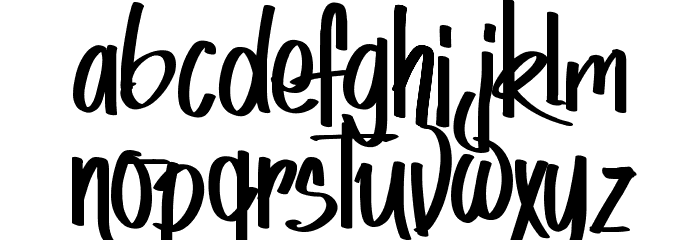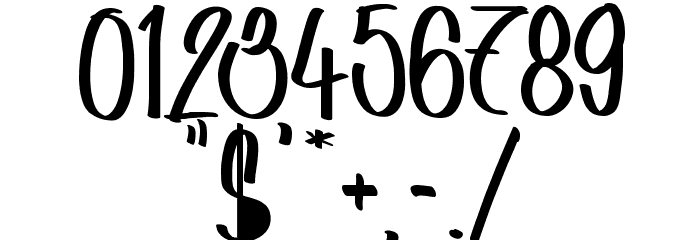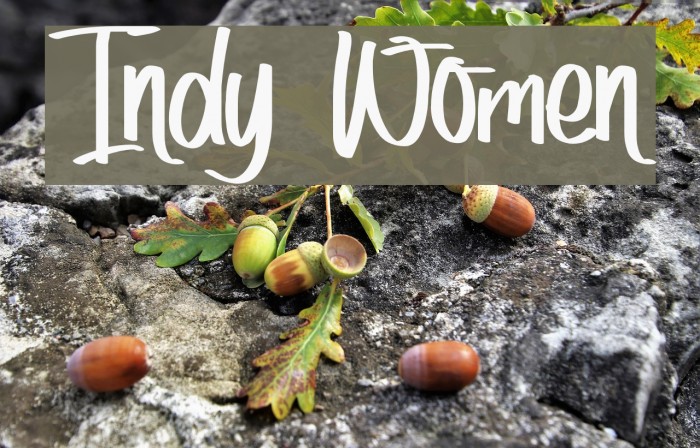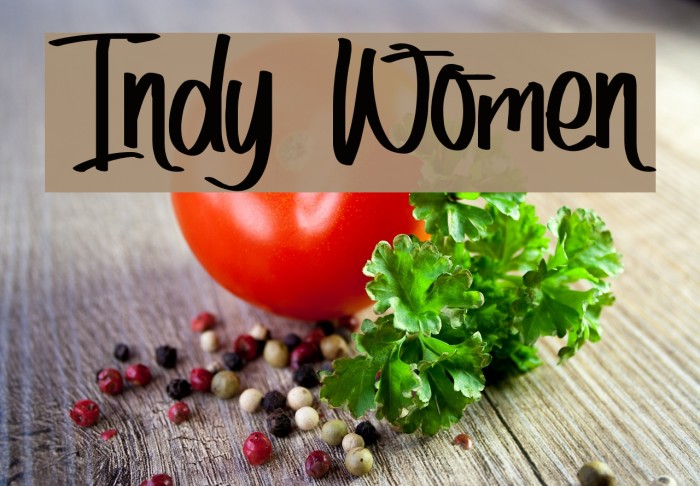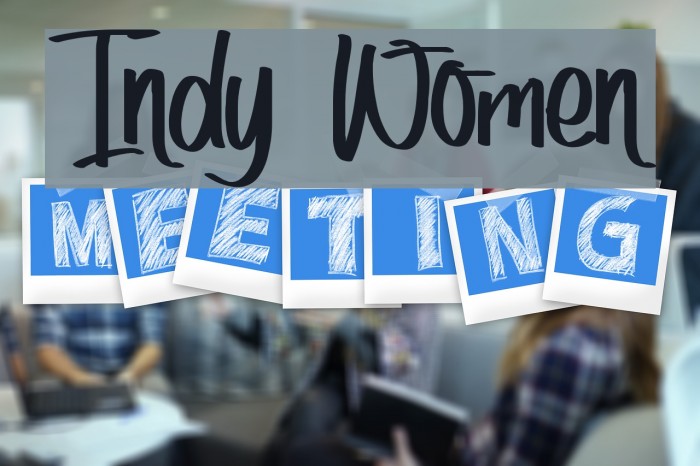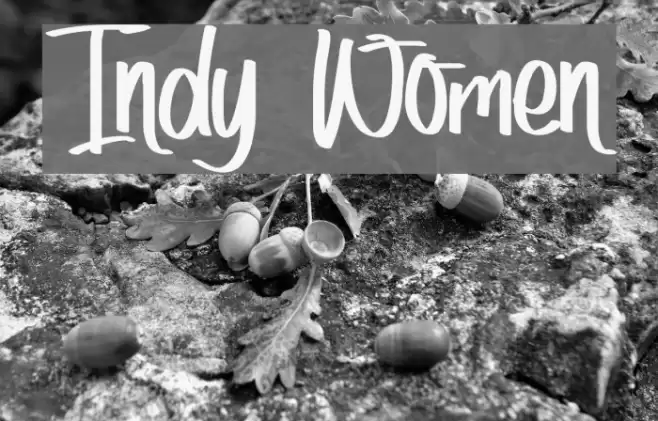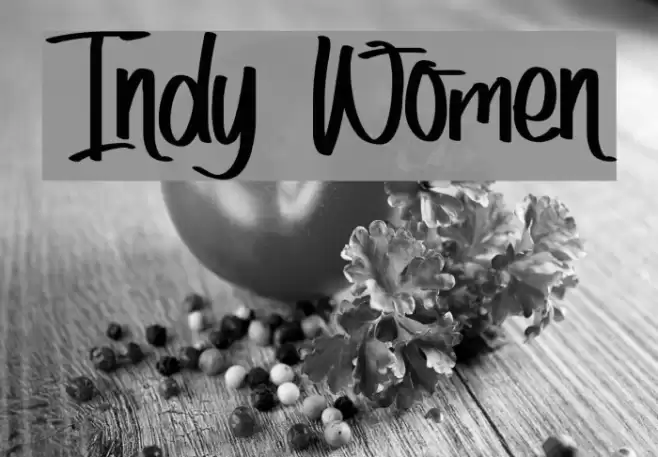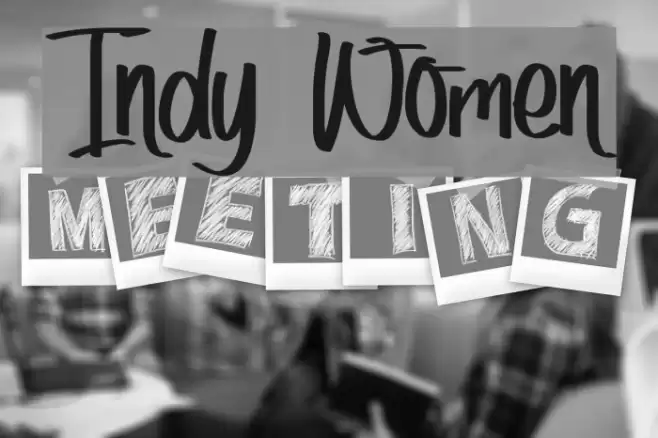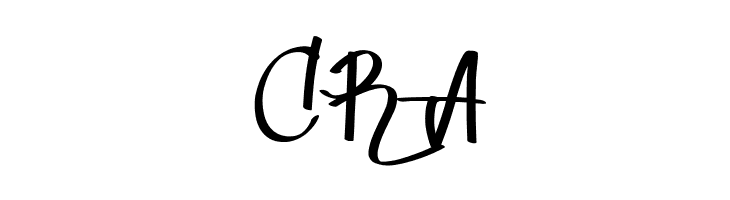
Indy Women Font
This font features a dynamic and expressive handwritten style, characterized by its fluid and energetic strokes. The uppercase letters are bold and slightly slanted, giving a sense of movement and spontaneity. The lowercase letters maintain a consistent flow, with some characters extending below the baseline, adding to its casual and informal appearance. The numerals are distinct and easy to read, while the special characters complement the overall playful aesthetic. This font exudes a sense of creativity and individuality, making it suitable for projects that require a personal touch.
A dynamic, expressive handwritten font with fluid strokes and a playful aesthetic.
- Proposed Projects: Ideal for greeting cards, invitations, personal branding, and creative projects that require a unique and personal touch.
- Use Case: Logos, Headlines, Creative projects